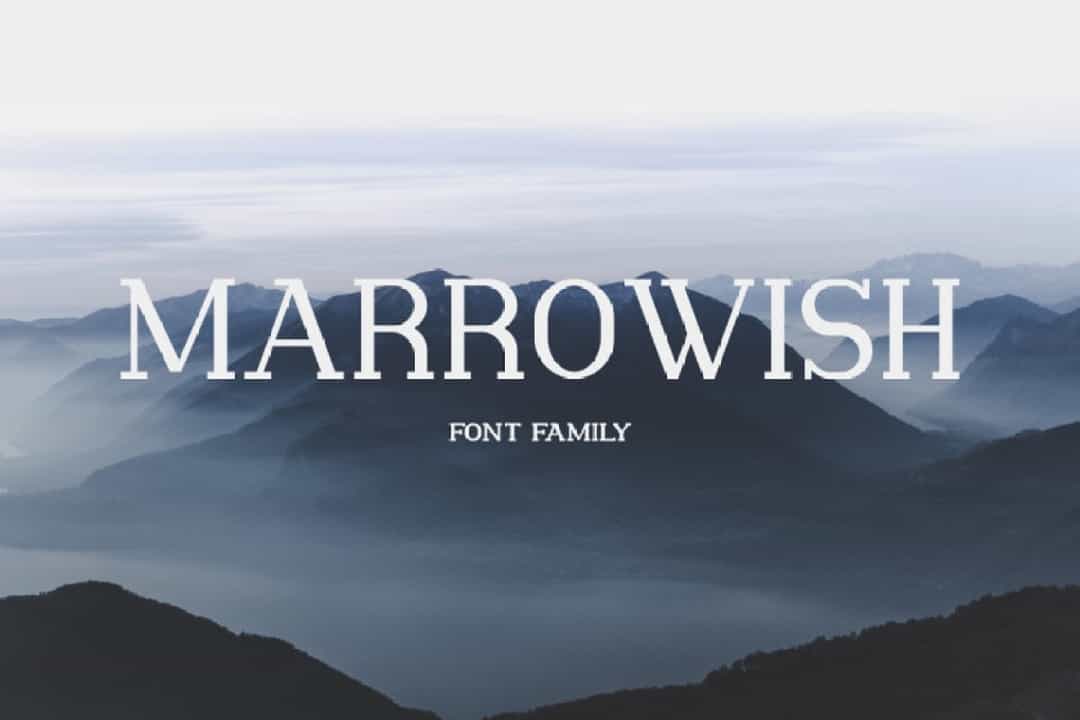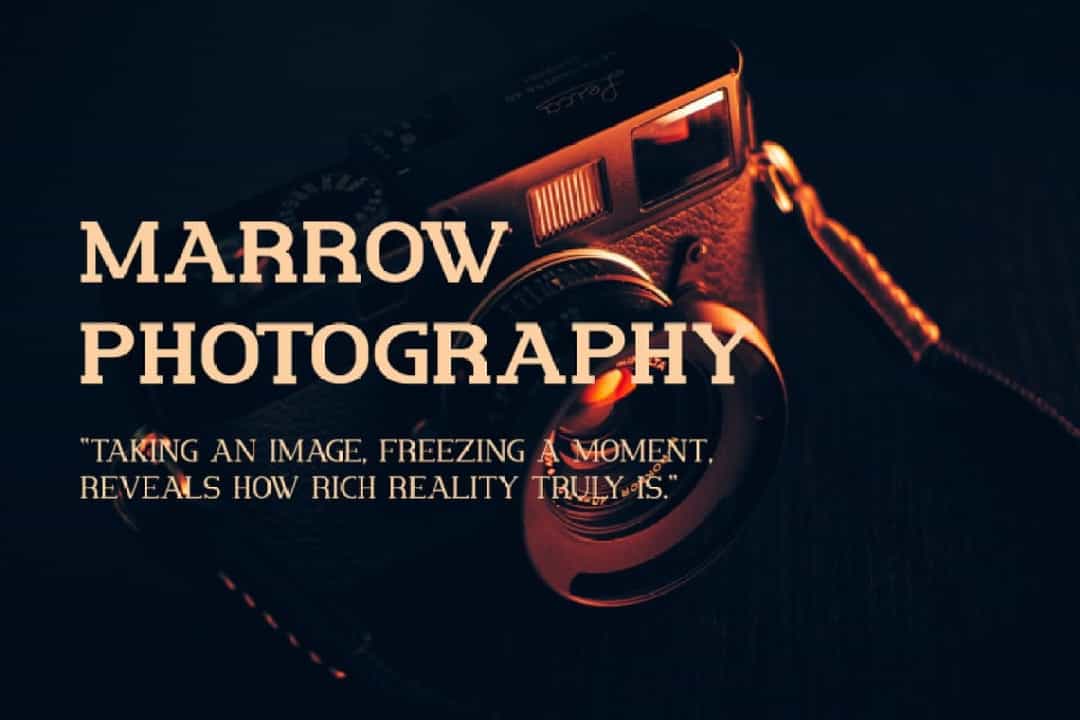
Marrowish is a sophisticated and easy style of slab serif. It is ideal for logos and titles on a big or smaller scale. Offering a professional style to your designs, Marrowish is confident and bold with a real and authentic look.